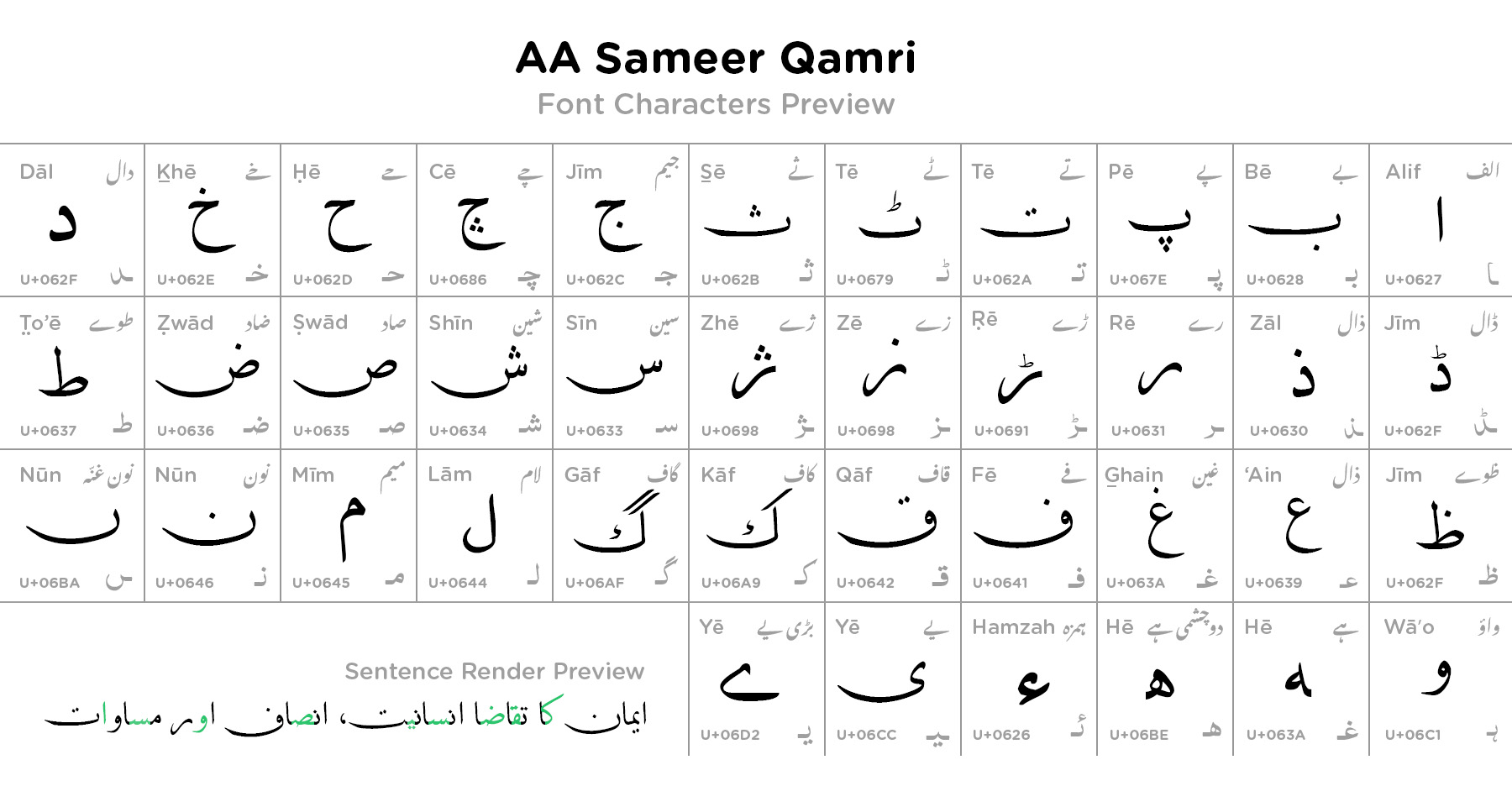
AA Sameer Qamri is an Arabic font that draws its inspiration from traditional Arabic scripts, Nastaliq and Diwani, which is evident from its elongated curly terminals with a little tilted emphasis on letterforms. Given the limited characters and glyphs this font family offers, AA Sameer Qamri has a larger charset of 458 unique characters and symbols with a huge glyph count of 453. The font has a high-stroke contrast, which makes it look more dynamic and interesting. The font does not have serifs, which makes it look more modern and cleaner. The font is designed to be clear and readable, even in small sizes. Moreover, this calligraphy font is compatible with modern Unicode Standards and various languages, including Arabic, Urdu, Persian, and more. It can be used to glorify your creative writing with its flowing design. You can use it to make culture-rich posters and banners, logos, enchanting book covers, and more. Use it with other regular fonts to make it shine even more.